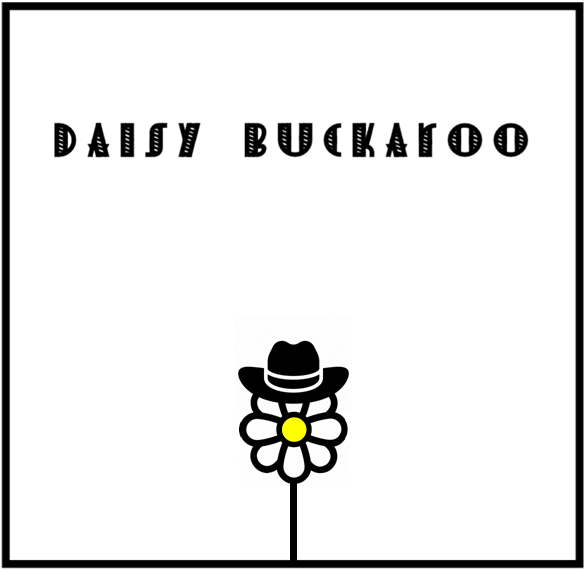
I am sure that this would fit very well in a wild west theme…
bwm, happy to know you think so~
Daisy Buckaroo, sounds like a name I would date! Great Art-Deco font as usual. And I also share BMWs view, that it could work as western flavoured font as well.